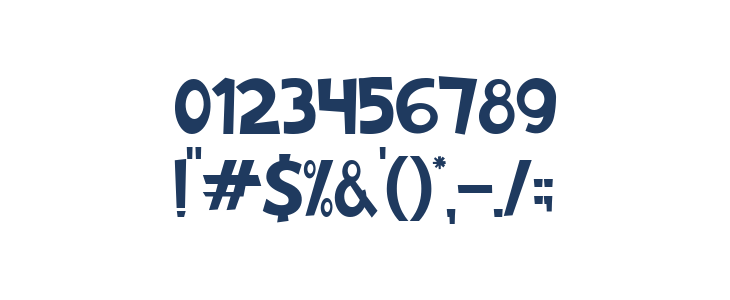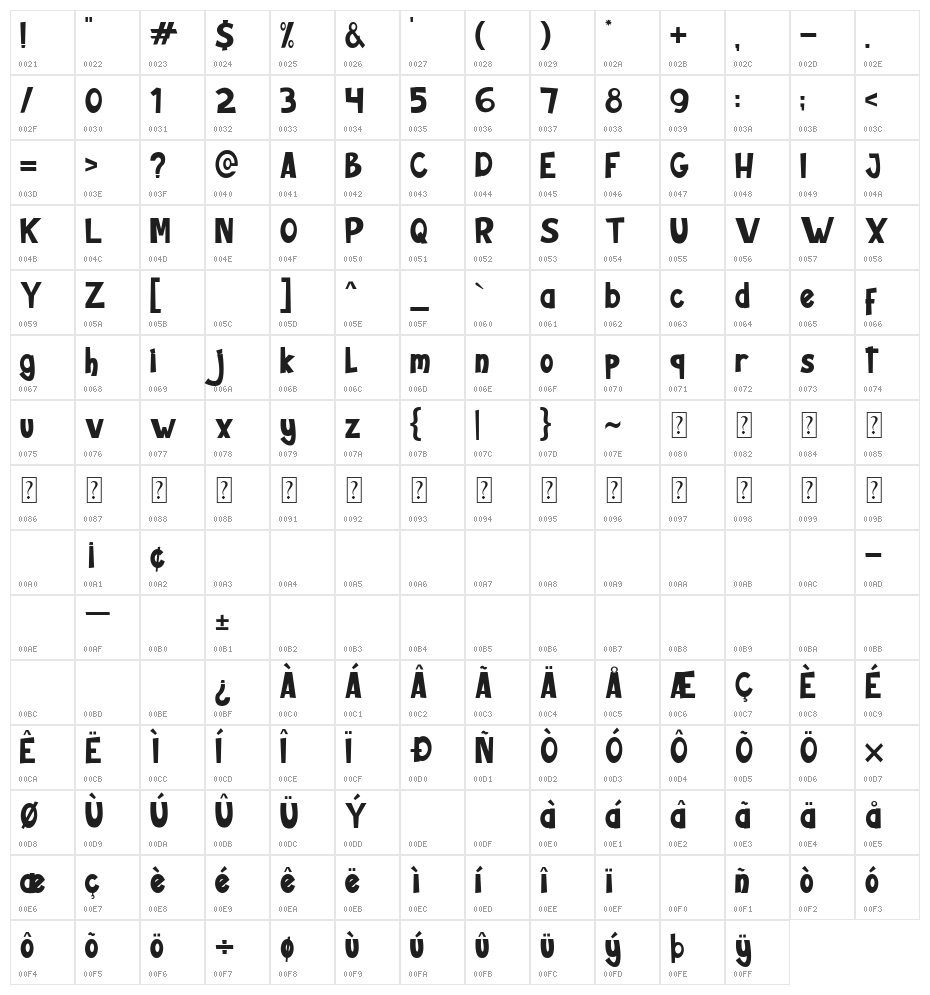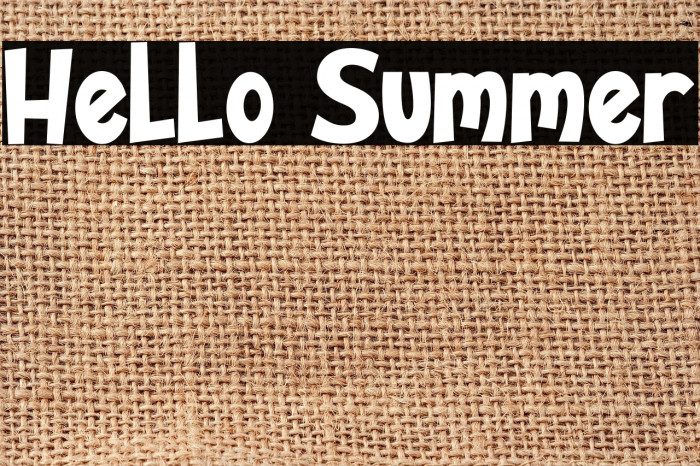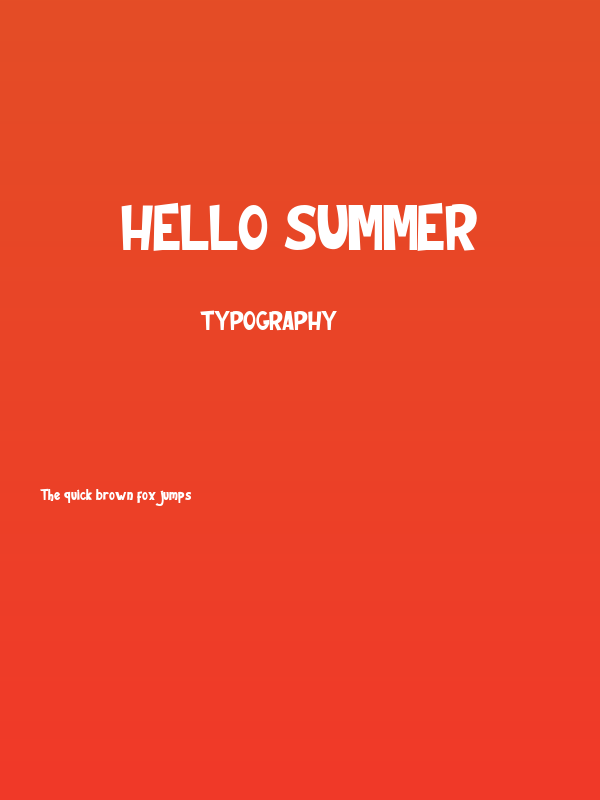
Hello Summer Font
Hello Summer Description
This font features a playful and bold design, characterized by its uneven and slightly irregular letterforms. The strokes are thick and have a whimsical, hand-drawn quality, which adds to its casual and fun appearance. The uppercase and lowercase letters maintain a consistent style, with rounded edges and a slightly tilted orientation that gives a sense of movement and energy. The numbers and special characters follow the same playful theme, making the font suitable for creative and informal projects. Its unique style makes it stand out, while still being legible and versatile.
| Proposed Projects | Ideal for children's books, party invitations, playful branding, and creative posters. |